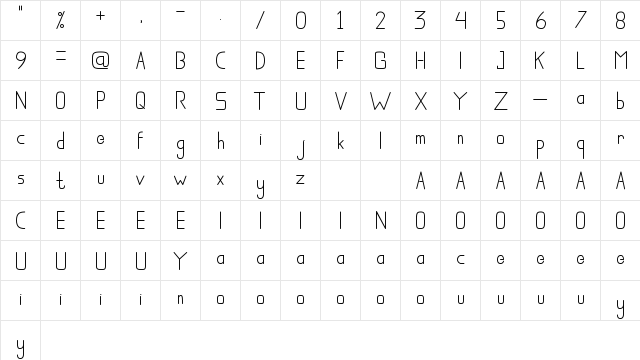
The Moon Regular
| Foundry | Faris Graphic Art |
| Designer | Faris Yoga Savero |
Design Context for The Moon Typeface
The Moon takes a measured approach to typography — its balanced proportions and neutral character make it a reliable workhorse for both digital and print work.